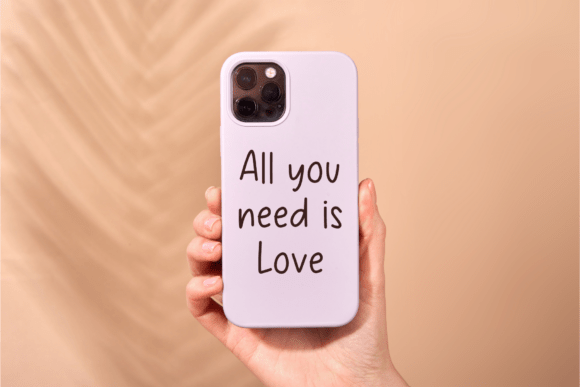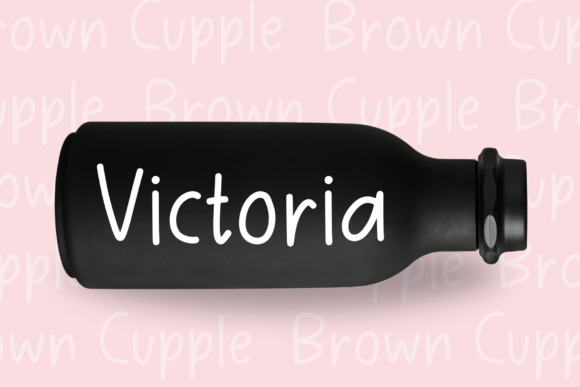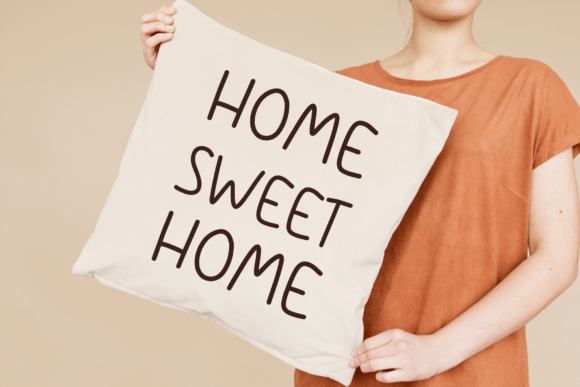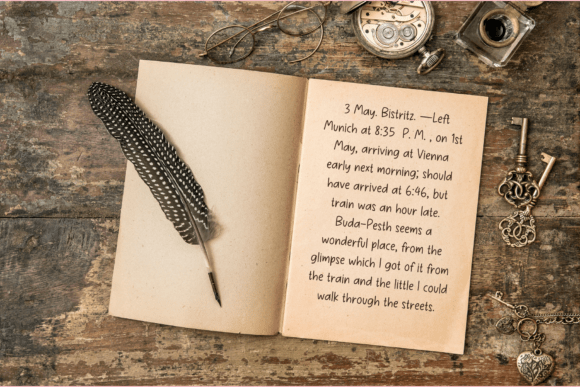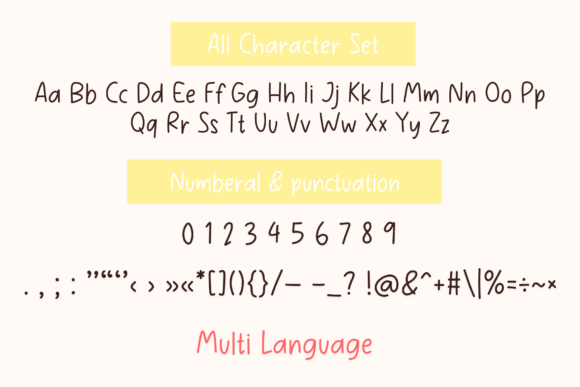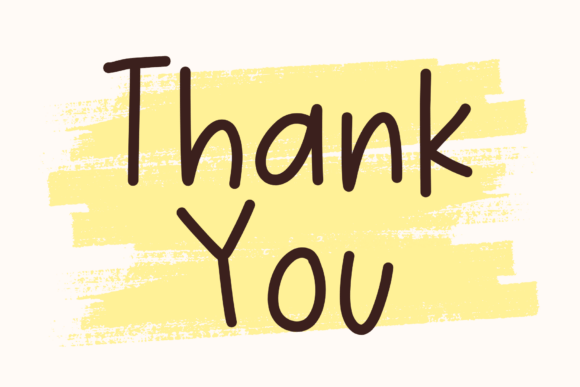
Introduction to Fresh Scribble Font
Fresh Scribble is a handwritten font.
It embodies playfulness and authenticity and is the perfect choice for all your favorite projects, or even for blog posts, logos, branding, ads, invitations, greeting cards, planners, photo albums, decorations, and much more Add it to any of your designs, and enjoy the results.
Key Features of Fresh Scribble Font
Why Choose Fresh Scribble Font?